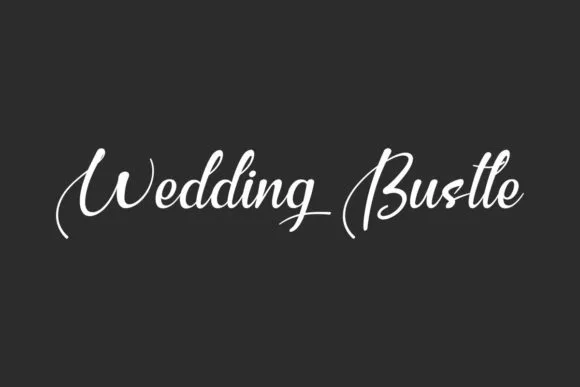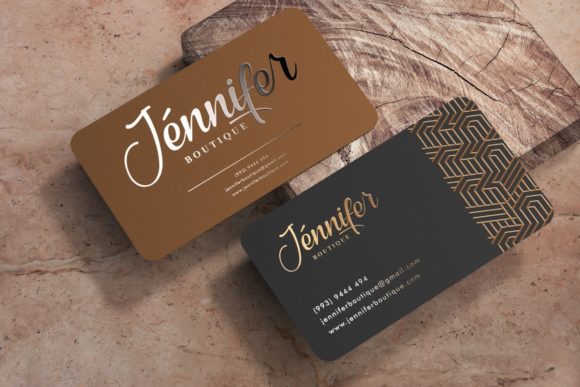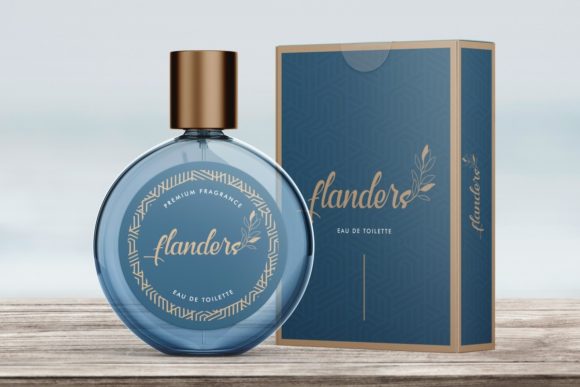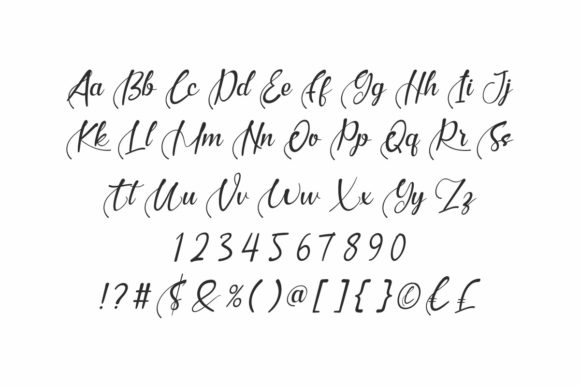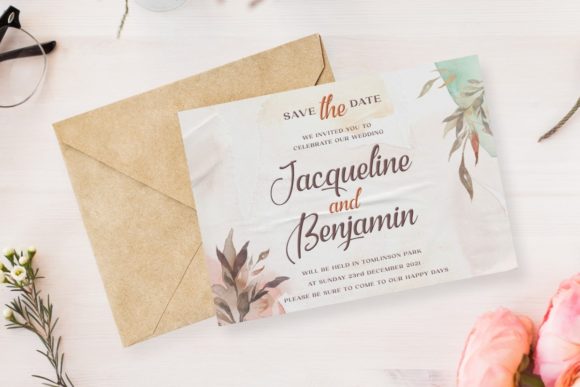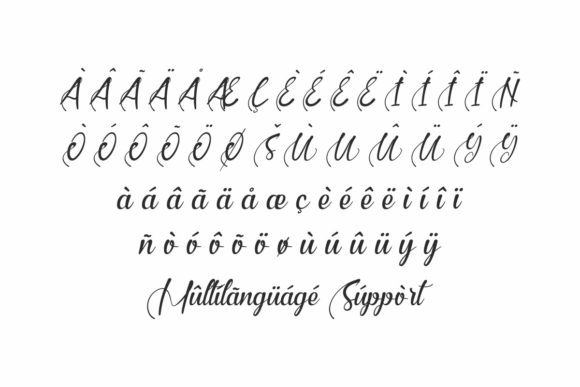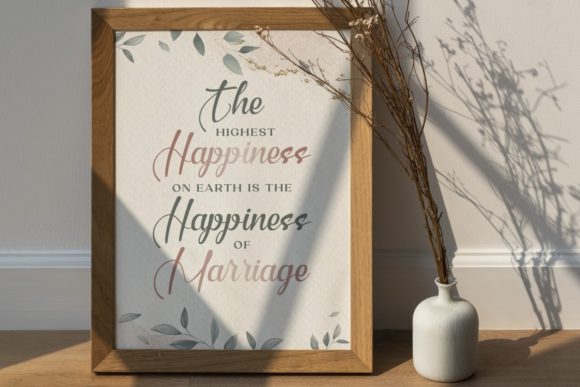
Wedding Bustle Font
About Wedding Bustle Font
Introducing Wedding Bustle, a beautiful and paint-brushed script font that boasts a nice flow, adding an elegant touch to your creative projects. This versatile font is perfect for a range of applications, including product packaging, branding projects, magazine covers, social media graphics, weddings, and any context where a stylish and expressive script is desired. With PUA encoding, accessing all the glyphs and swashes is a breeze, providing you with the flexibility to customize your designs effortlessly.
Wedding Bustle’s appeal lies in its graceful and flowing script design, making it a suitable choice for projects that require a touch of sophistication. Whether you’re working on product packaging or expressing words above a background, this font brings an artistic and elegant flair to your designs.
For product packaging, Wedding Bustle becomes a defining element, adding a stylish and contemporary look to labels and packaging designs. The font’s paint-brushed aesthetic contributes to a visually appealing presentation for your products.
In branding projects, Wedding Bustle enhances the overall identity with its beautiful script. Whether used in logos, promotional materials, or social media graphics, the font adds a touch of elegance that resonates with modern aesthetics.
Magazine covers benefit from Wedding Bustle’s nice flow script, creating a captivating and artistic typography choice. The font’s readability ensures that text is visually appealing while maintaining a fresh and attractive appearance.
Weddings, as the name suggests, are a perfect context for Wedding Bustle. The font adds a romantic and sophisticated touch to wedding invitations, stationery, and other design elements, capturing the essence of love and celebration.
Wedding Bustle is more than just a font; it’s a creative tool that allows you to infuse your designs with a sense of elegance and artistic expression. Embrace the beauty of Wedding Bustle as you confidently incorporate it into your various creative projects, adding a touch of sophistication and style to your designs.